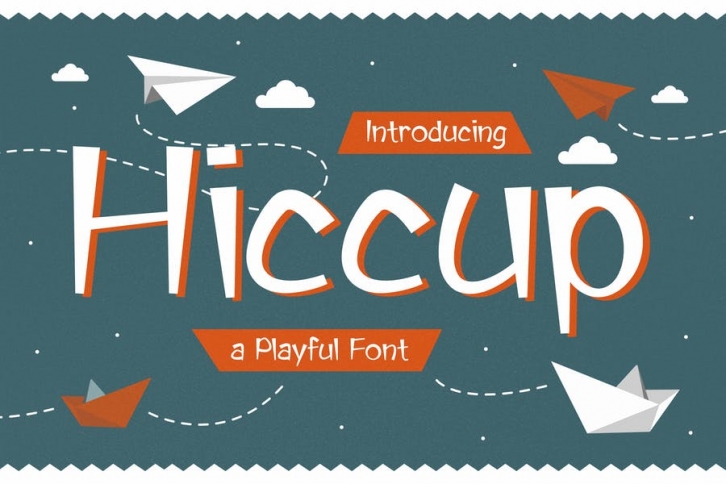
Hiccup – Adorable Playful Font Download
Hiccup is a display font with an incredibly adorable charm. Get inspired by its whimsical feel, and turn any creative project into an eye catcher! Perfect for party invitations, printed quotes, standout packaging, or adorable designs! You can even use it to create amazing headings, logos, menus, and social media graphics. Also it Suited for Kids Theme and many more!